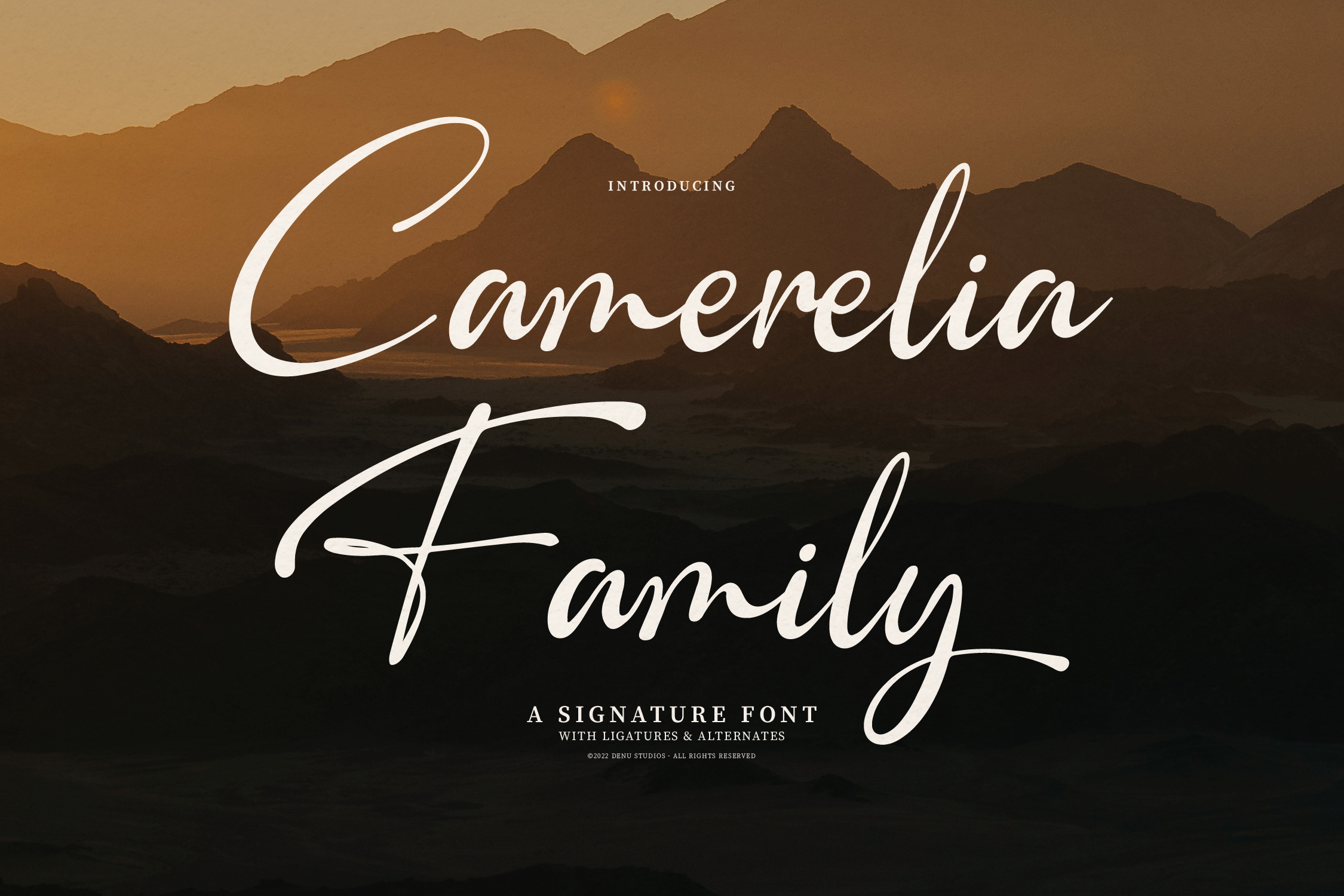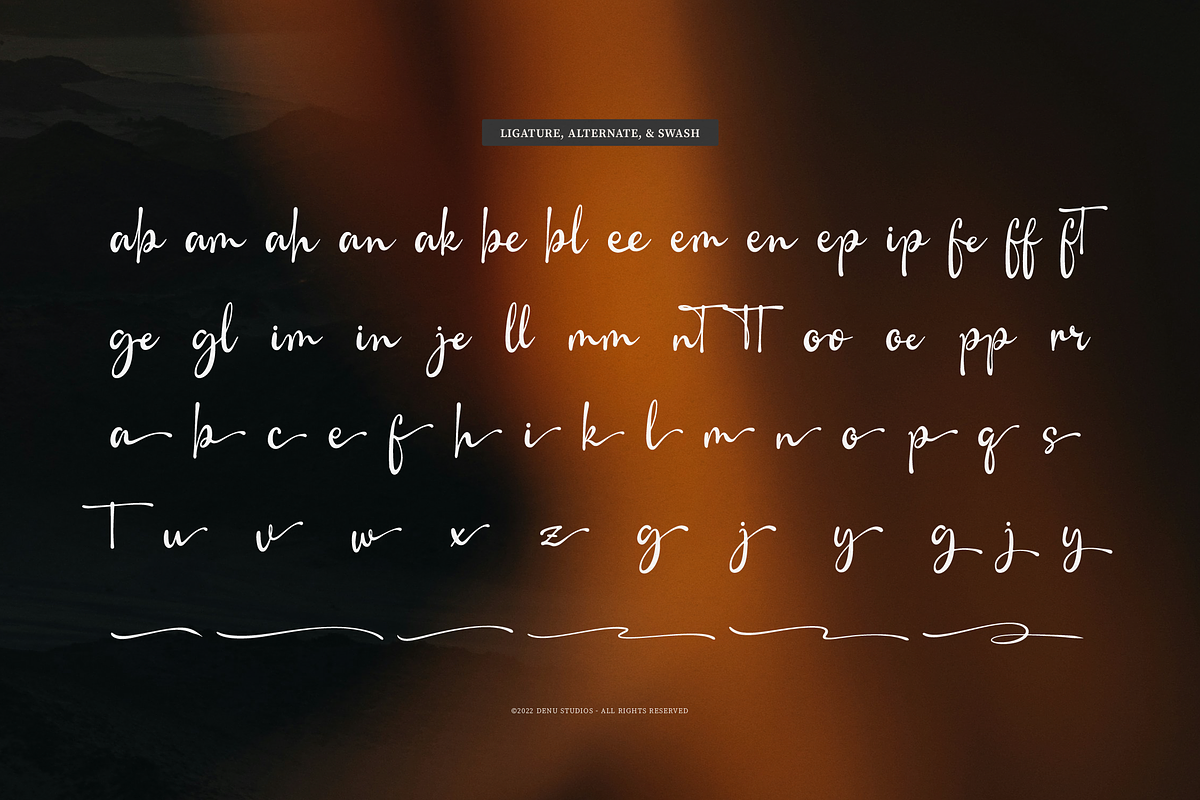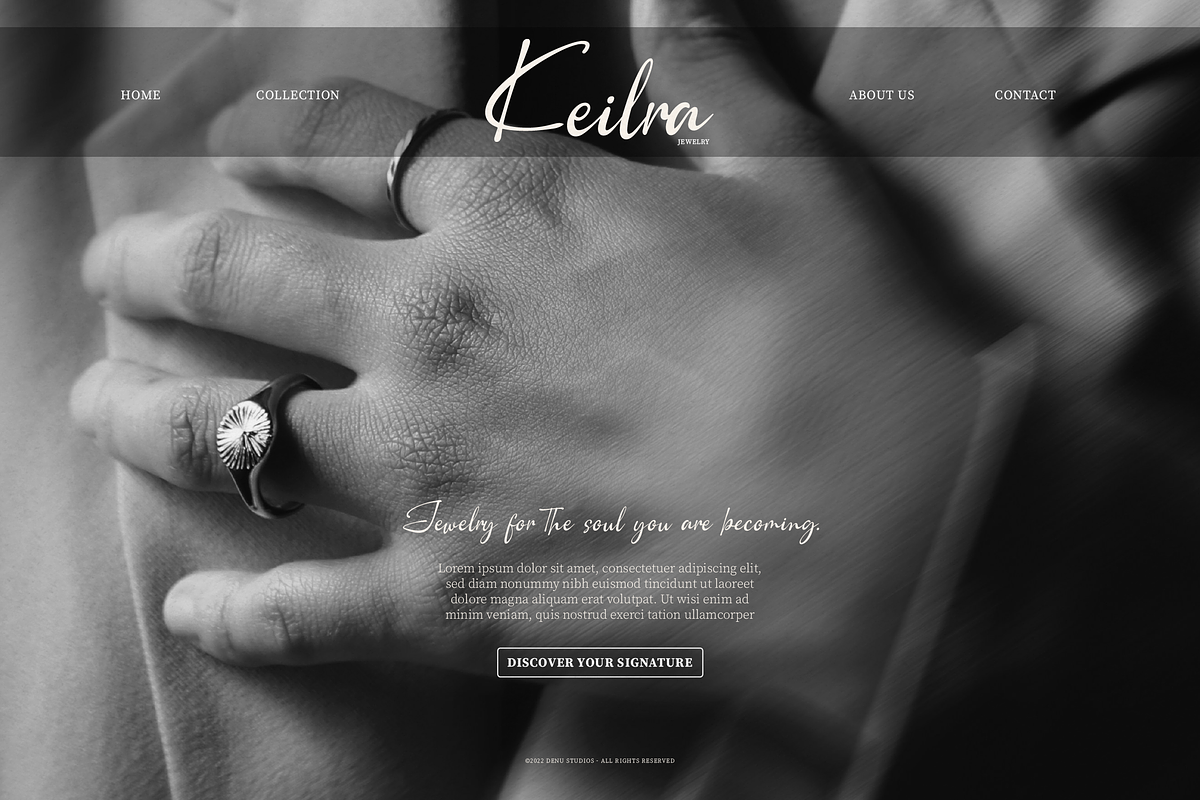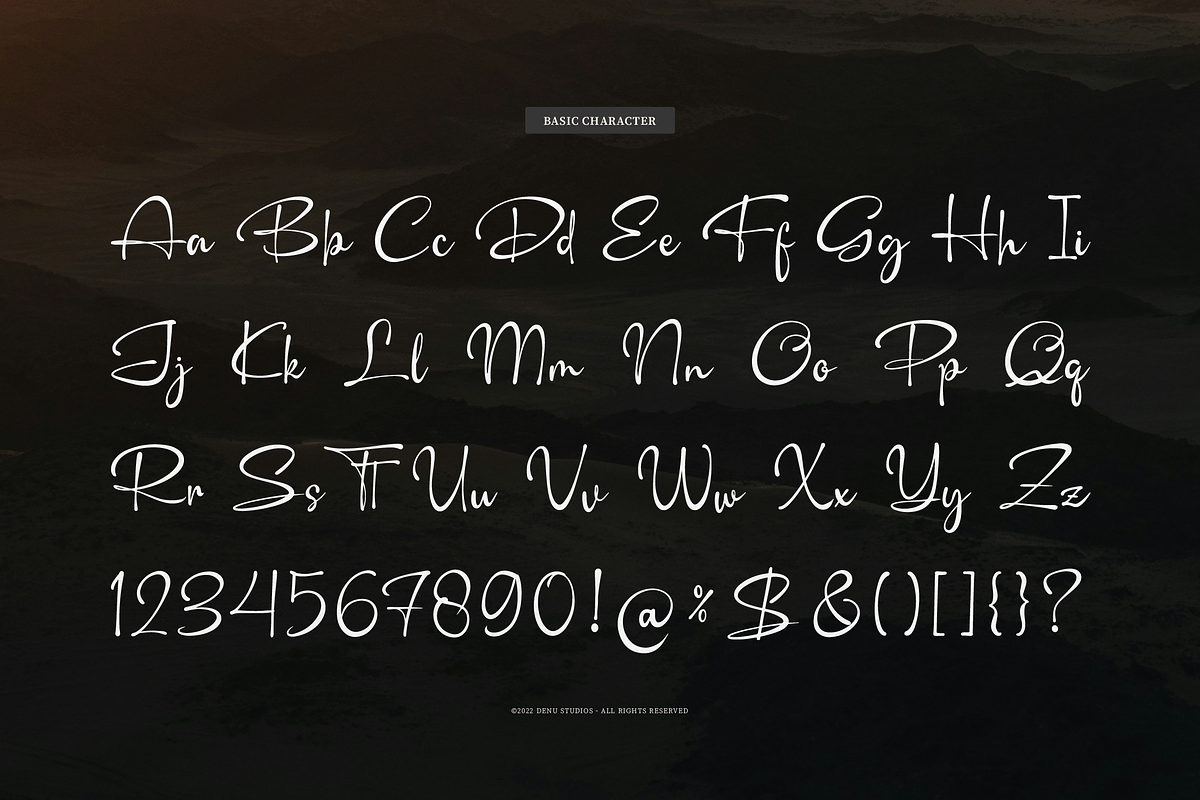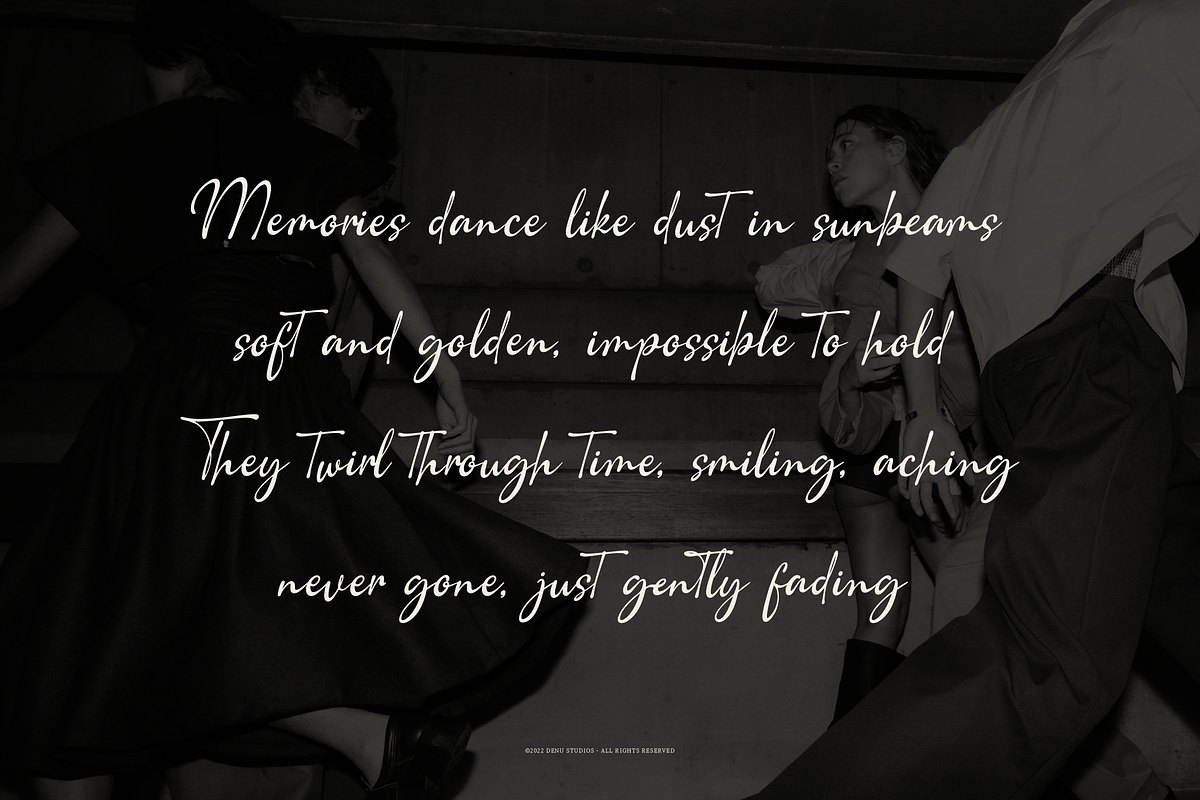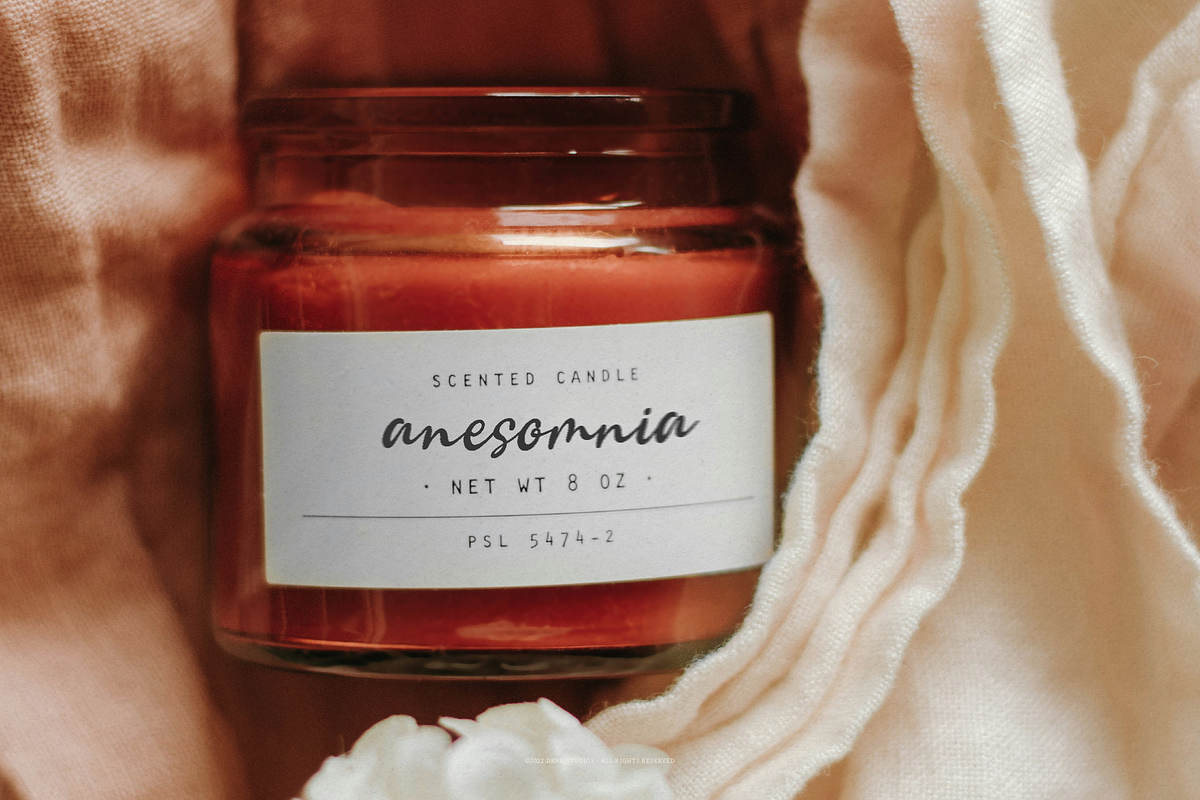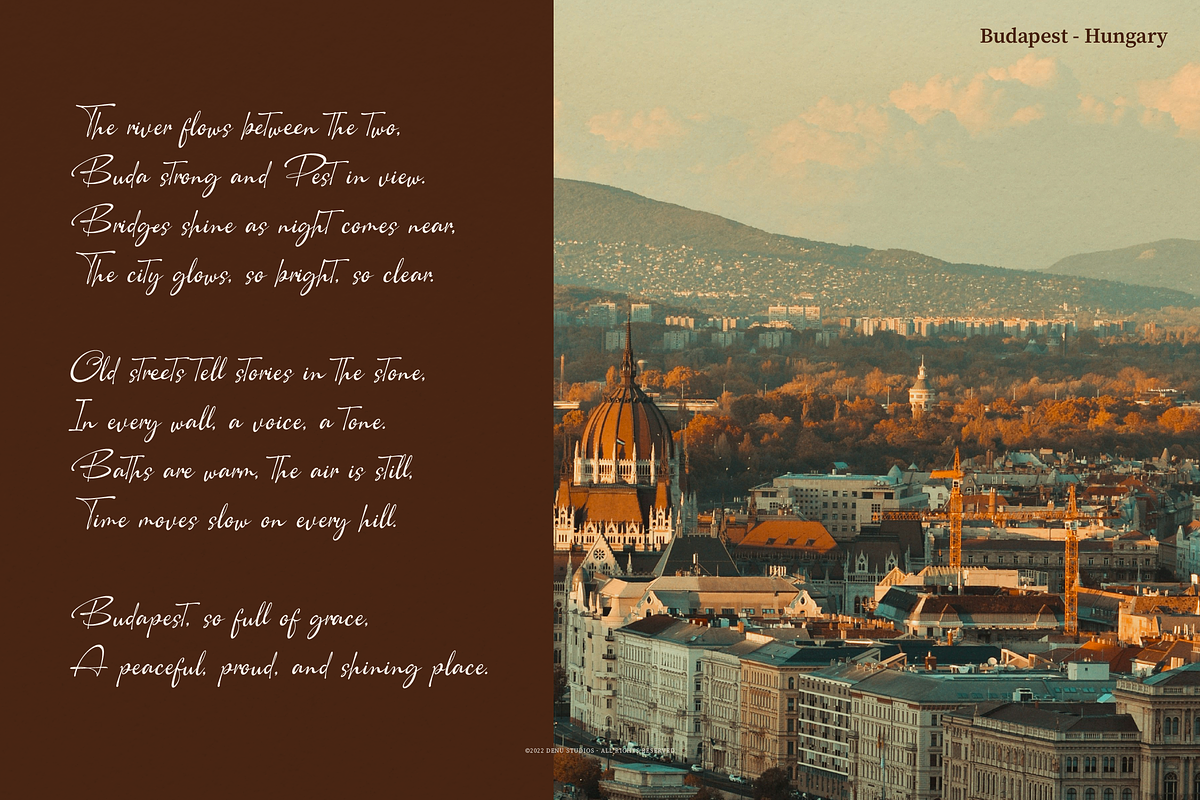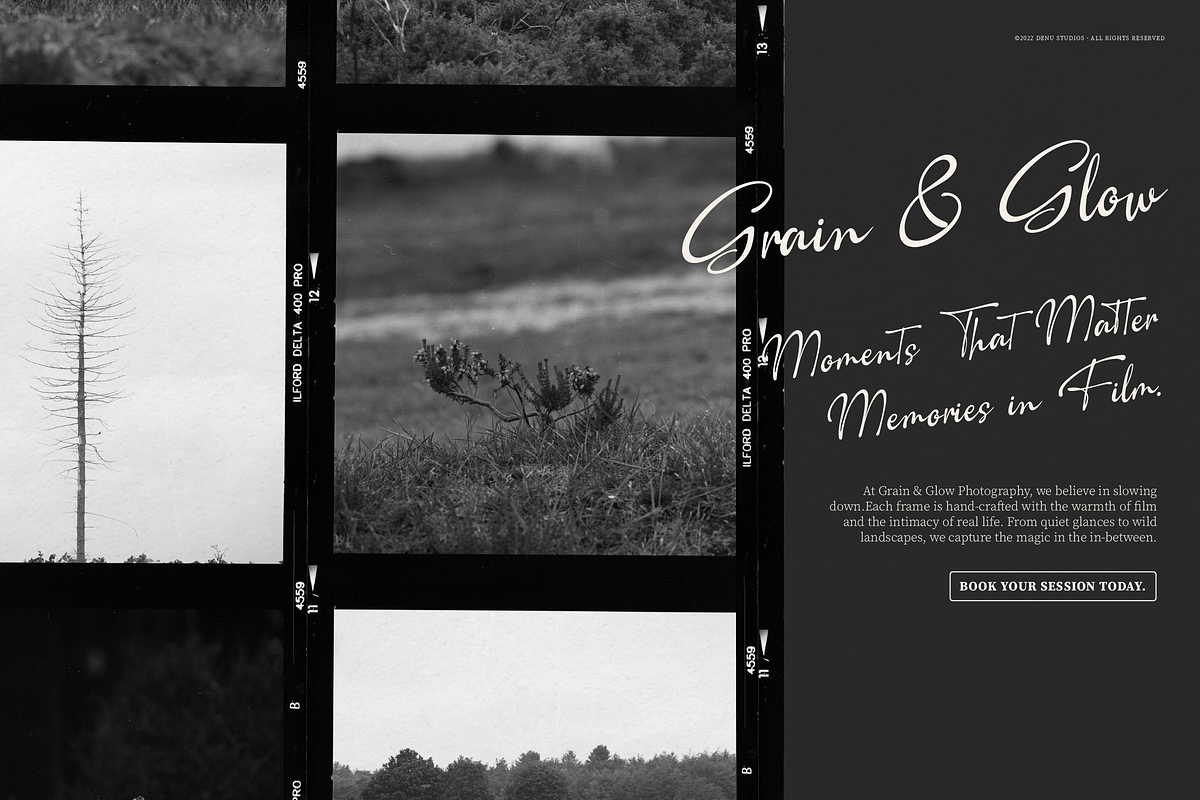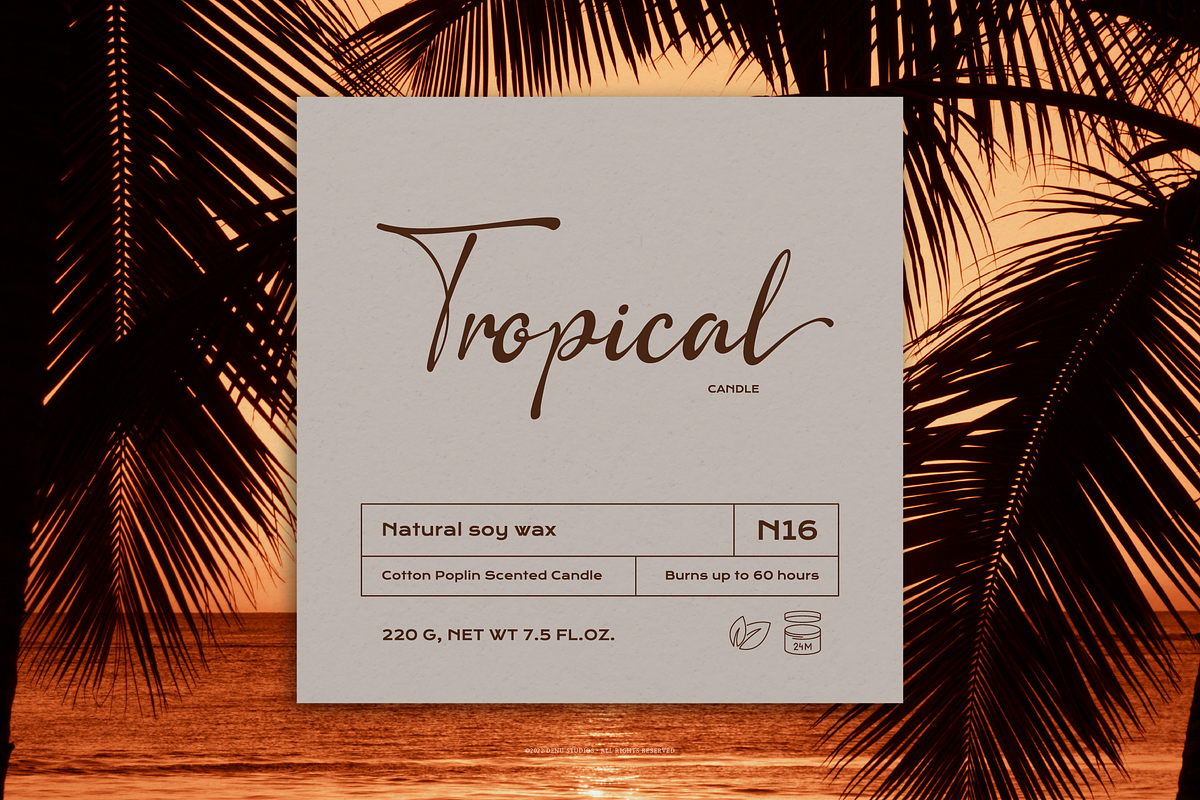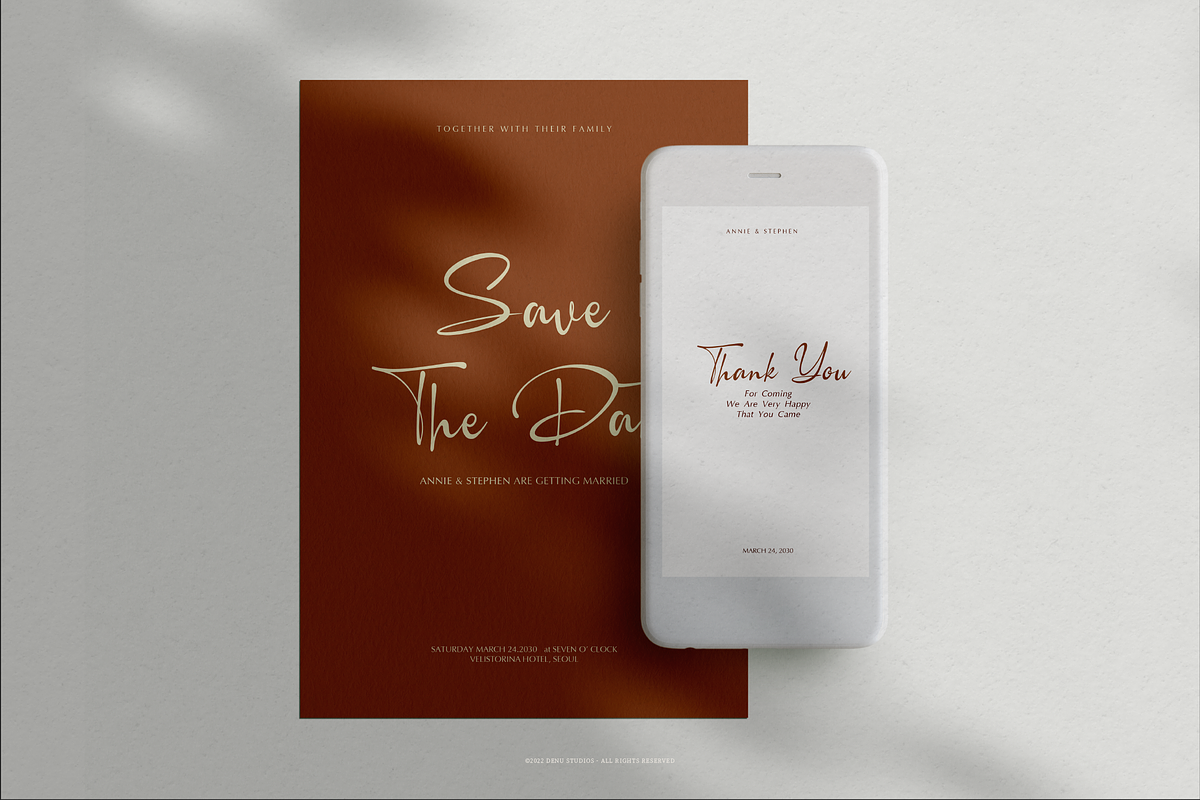
Camerelia Family | Signature Font
Camerelia Family | Handwritten Signature, from Denustudios, suitable for any projects such as: logos, branding projects, homeware designs, product packaging, mugs, quotes, posters, shopping bags, t-shirts, book covers, name card, invitation cards, greeting cards, label, photography, watermark, special events, and all your other lovely projects that need a Handwritten Signature taste.